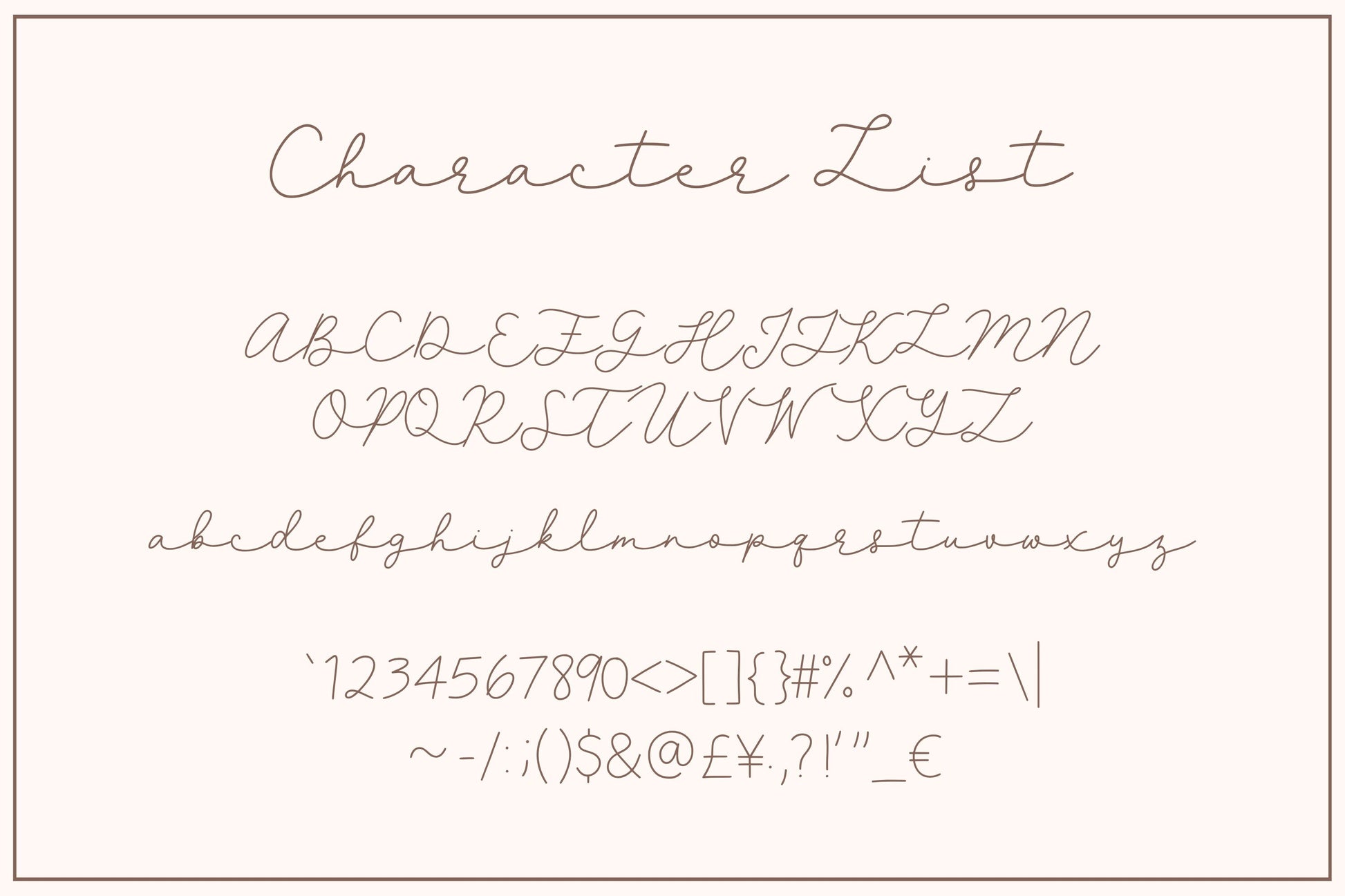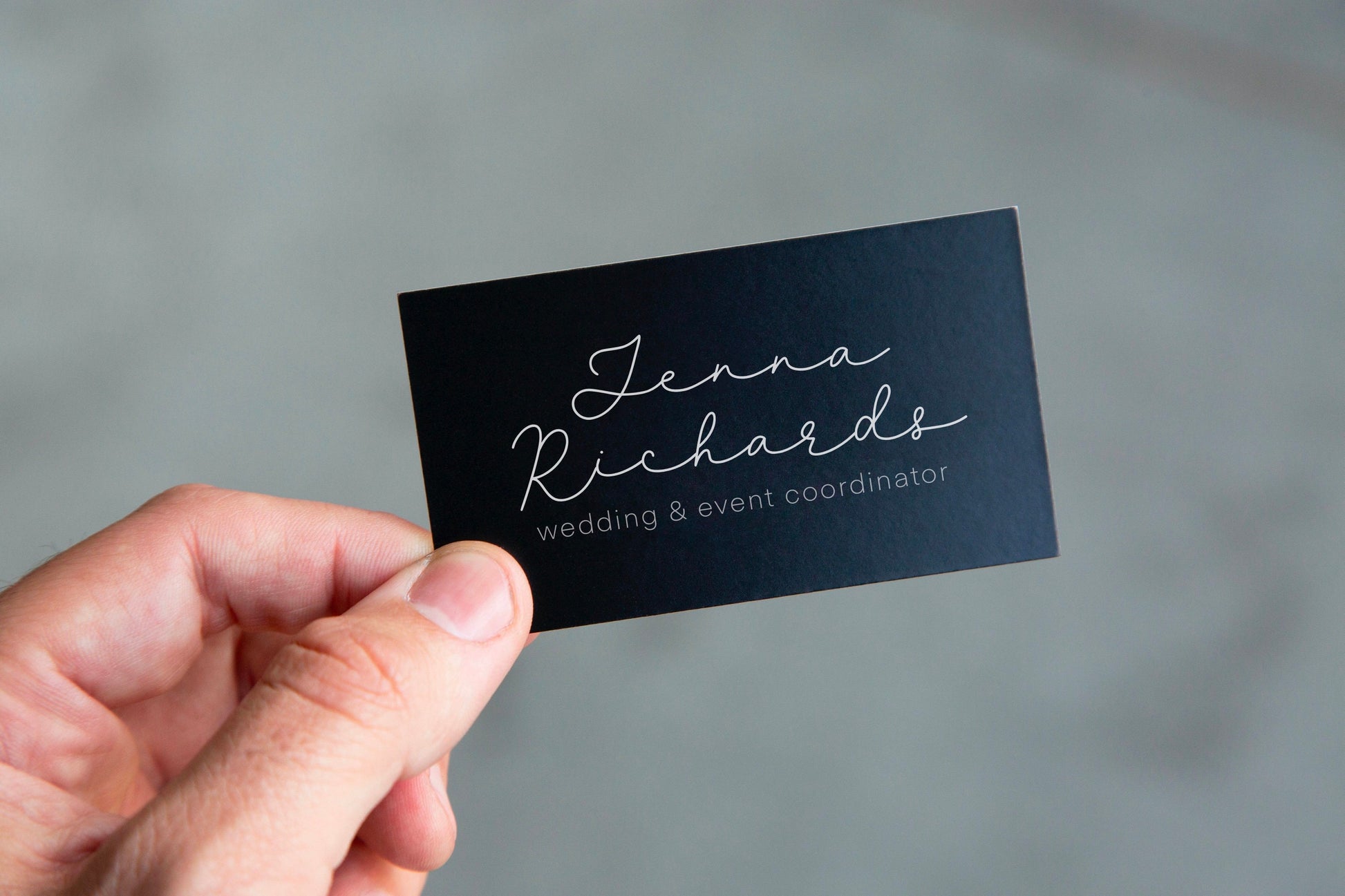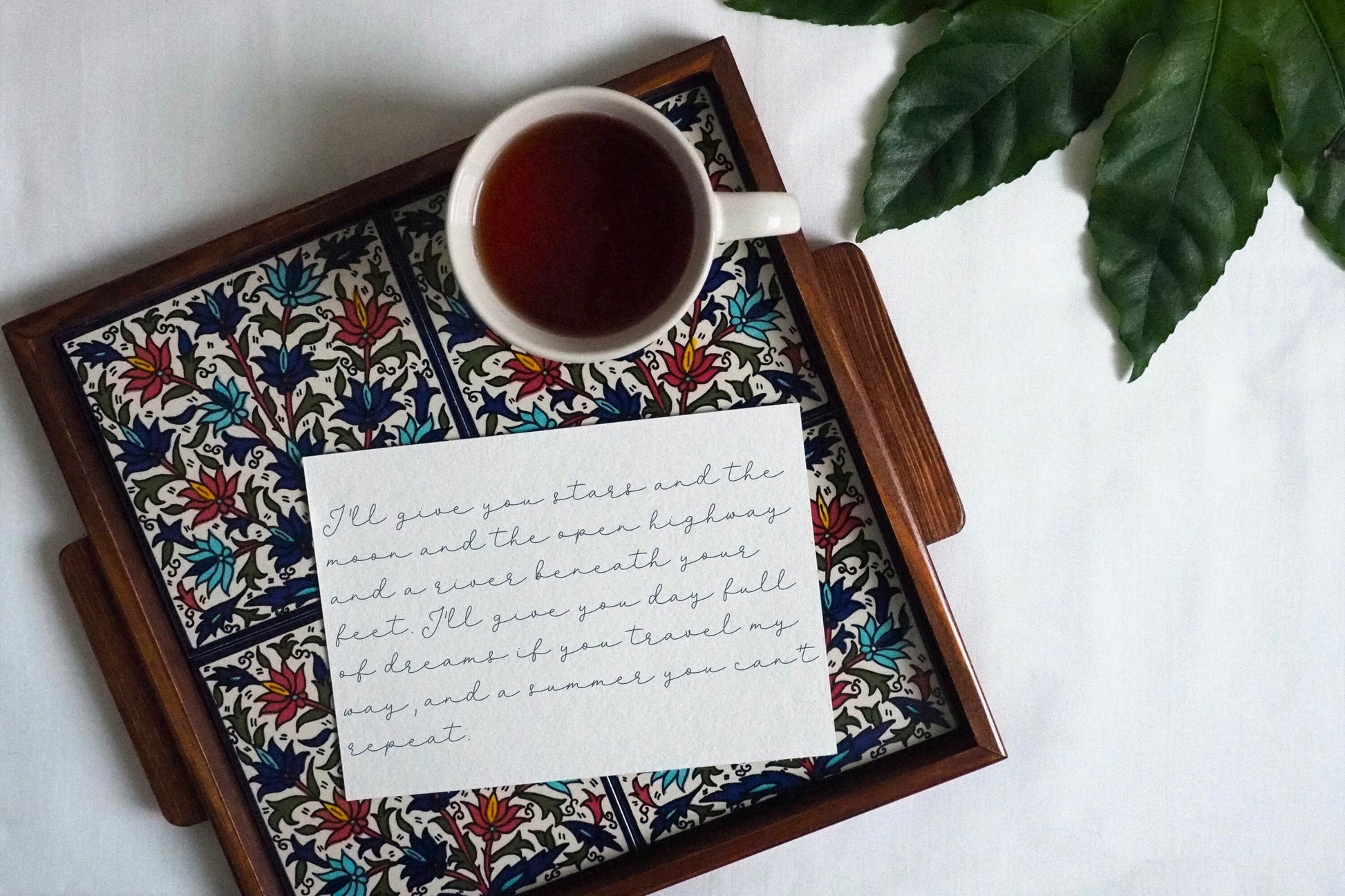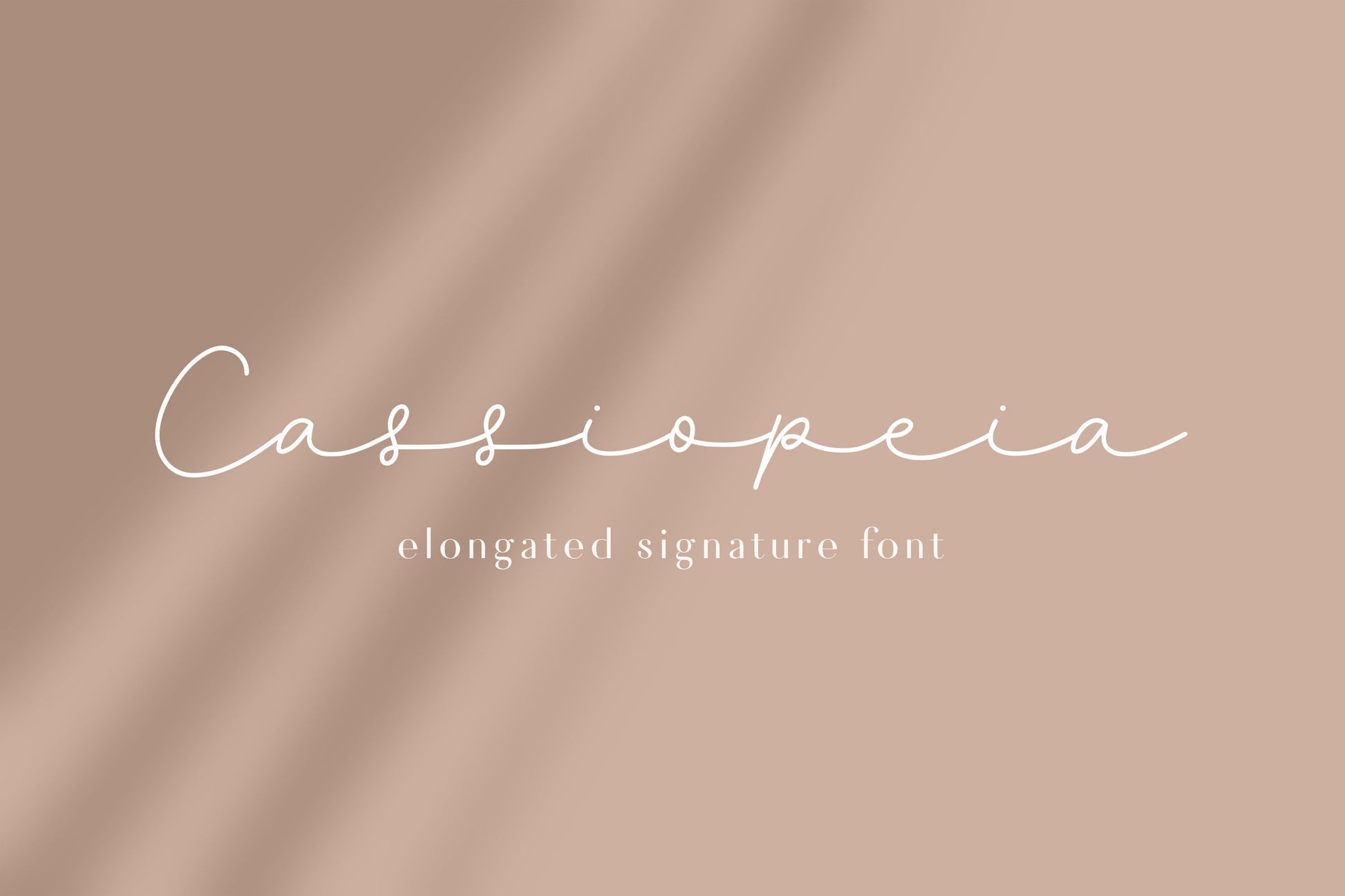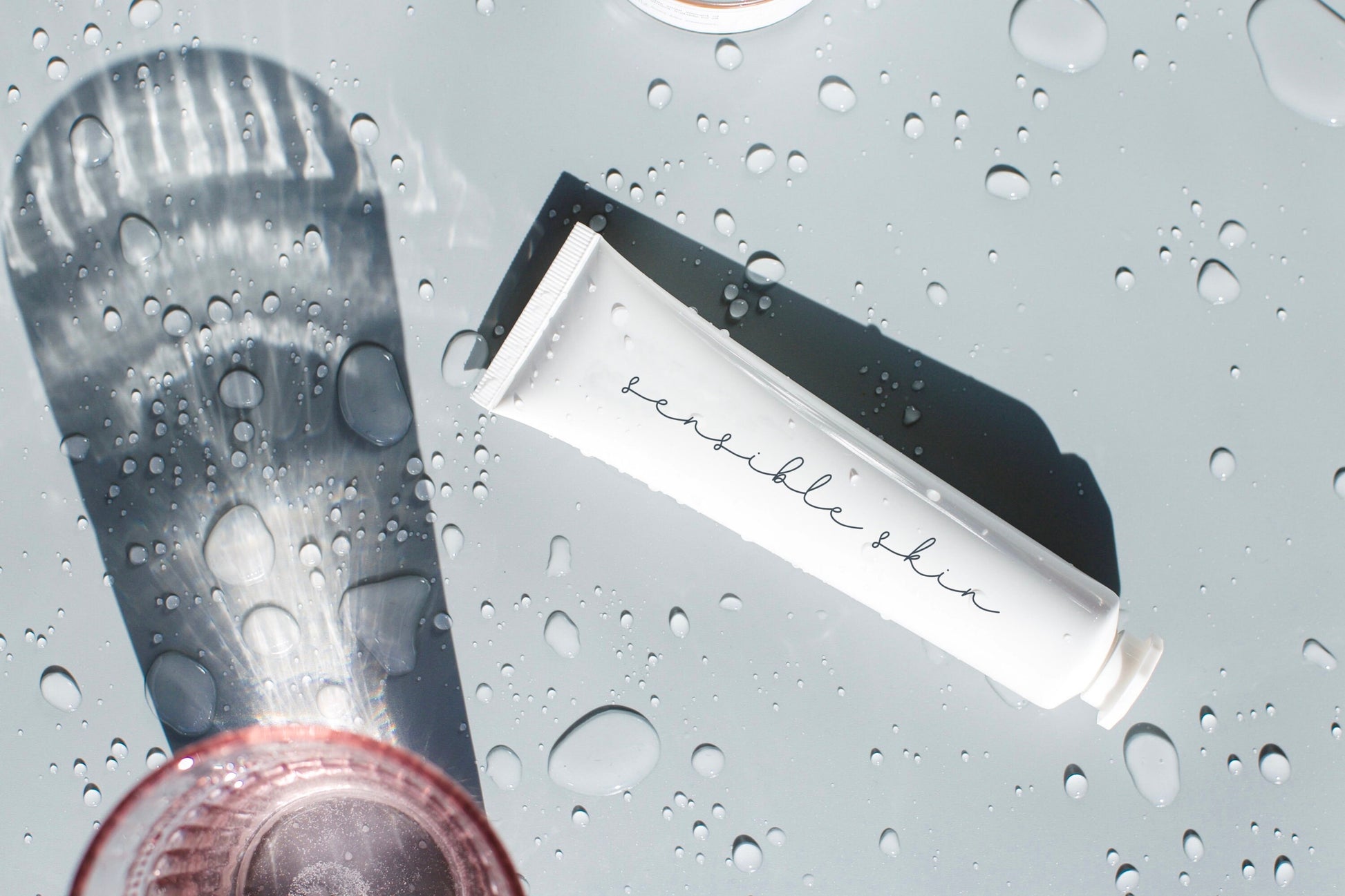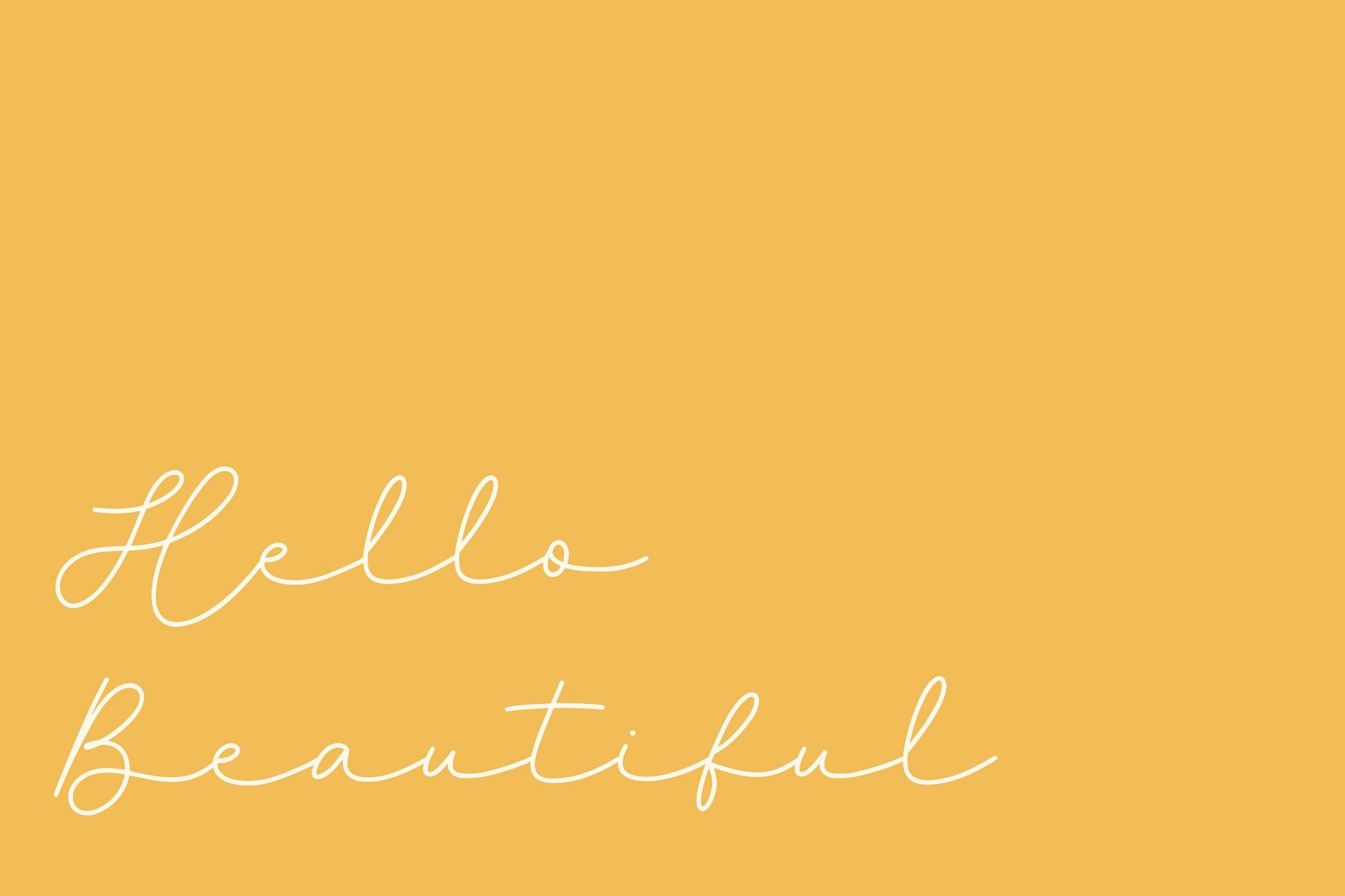
Cassiopeia Handwritten Signature Font
This is my Cassiopeia handwritten/hand drawn font. This elongated signature script font is perfect for any design. It works great for branding, logos, posters, magazines, quotes, or even tattoo designs!